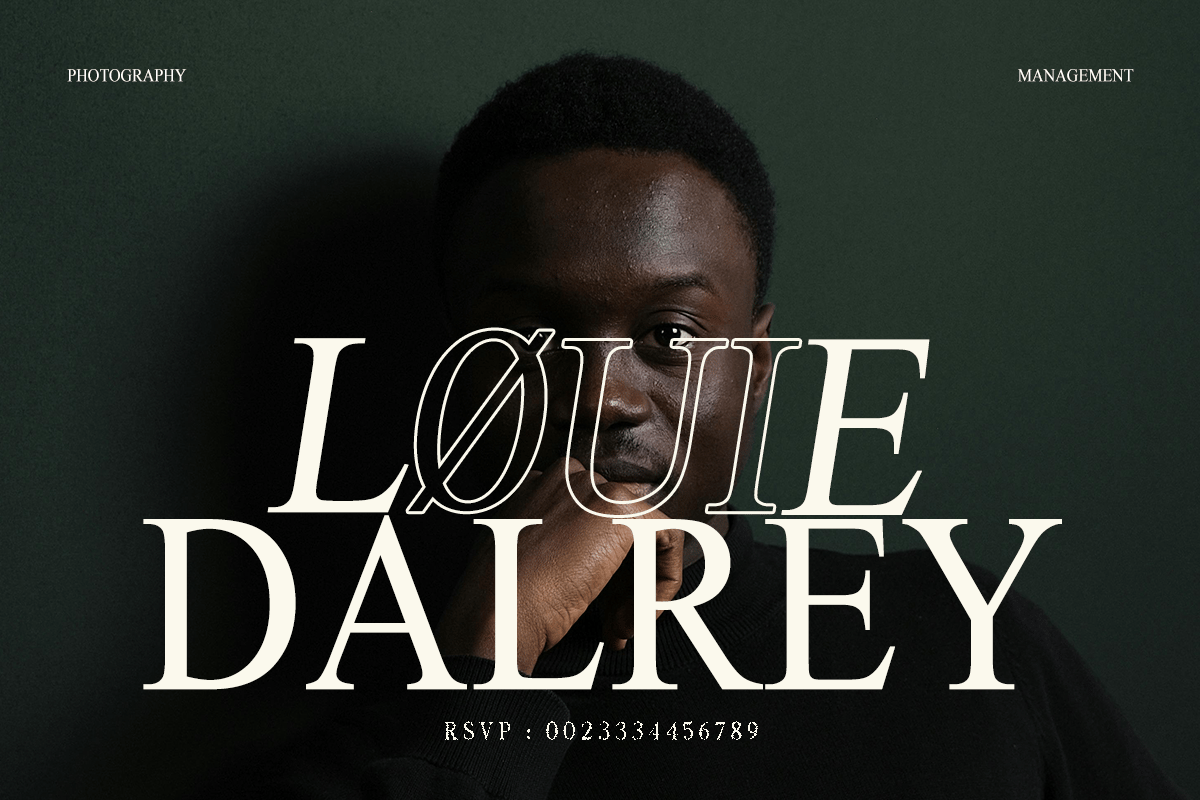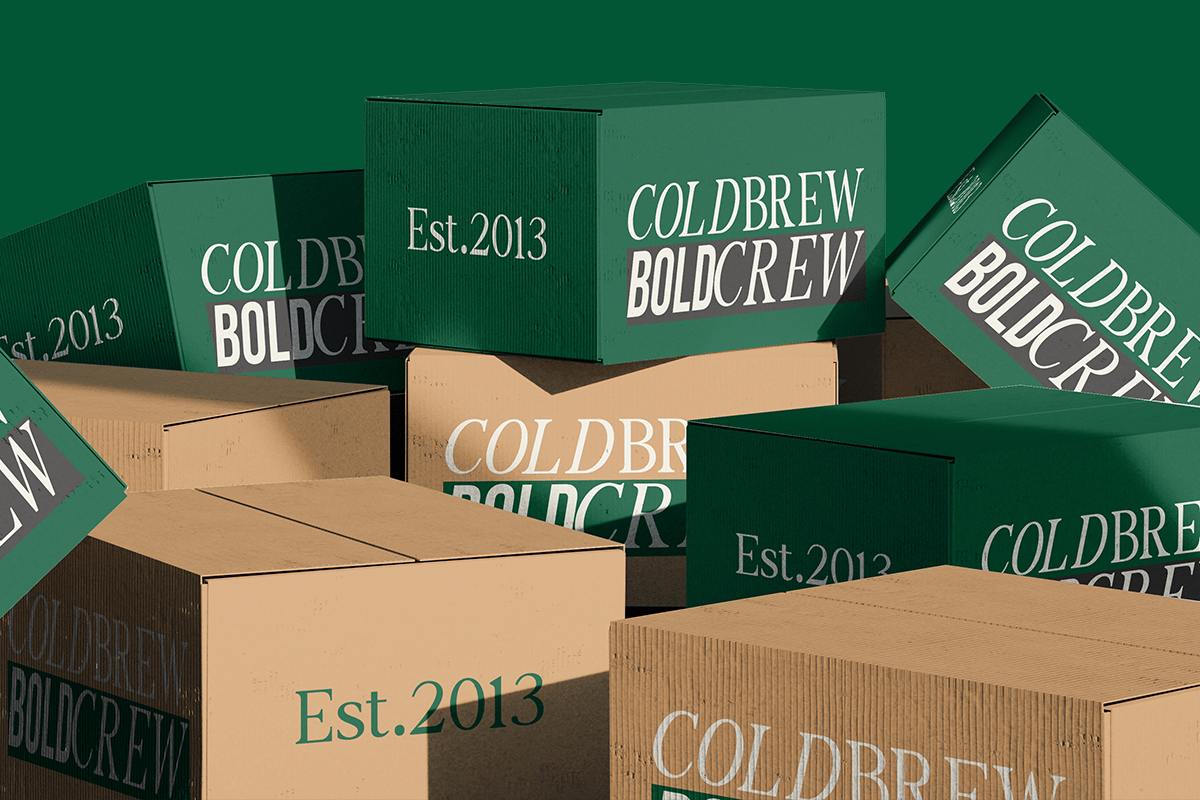
The Foriene Elegant Serif Font
The Foriene Elegant Serif Font is a versatile typeface ideal for various projects, including logos, branding, posters, blog headers, advertisements. The free version includes a full set of uppercase and lowercase letters, available in OTF format.